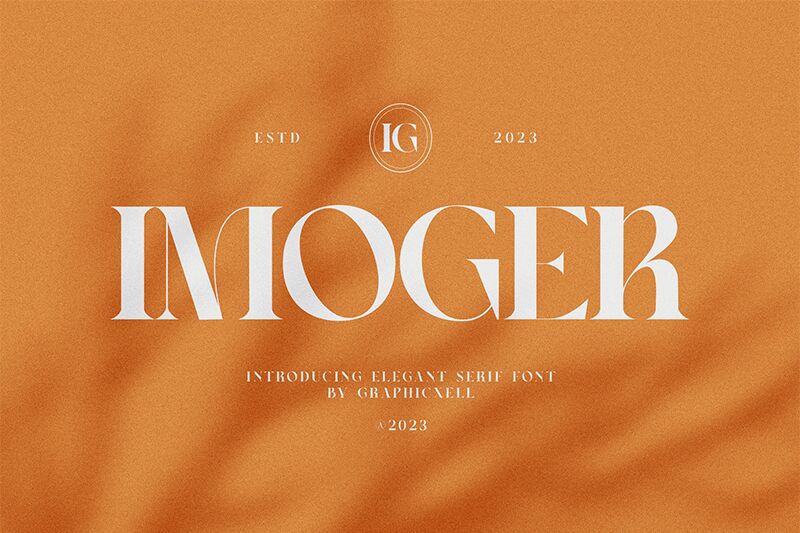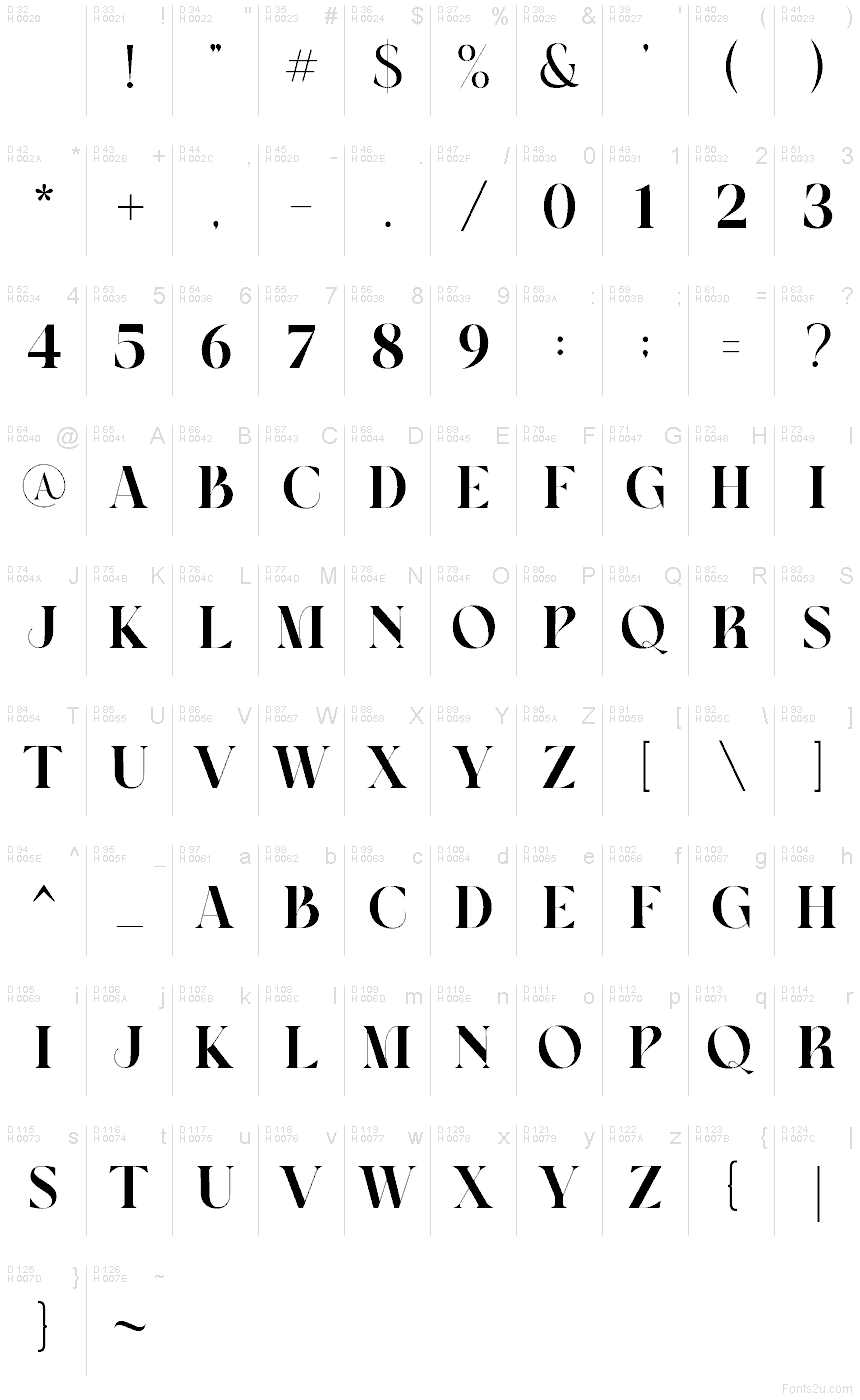
Imoger
Imoger font by Graphicxell is a free decorative serif font. Its personality lives in those carved crescent cuts and glossy, inky strokes that feel sculpted rather than drawn, giving each letter a dramatic silhouette. The rhythm is tight and deliberate, so words lock together with a luxe, editorial snap that catches light like polished lacquer.
Using Imoger, headlines and logos gain a couture mood that shines on fashion branding, magazine covers, posters, packaging, album art, and event invitations. The sharp curves and crisp negative shapes add instant drama without shouting, especially at larger sizes. Pair this free font with a quiet grotesk for body text, and let Imoger carry the spotlight.